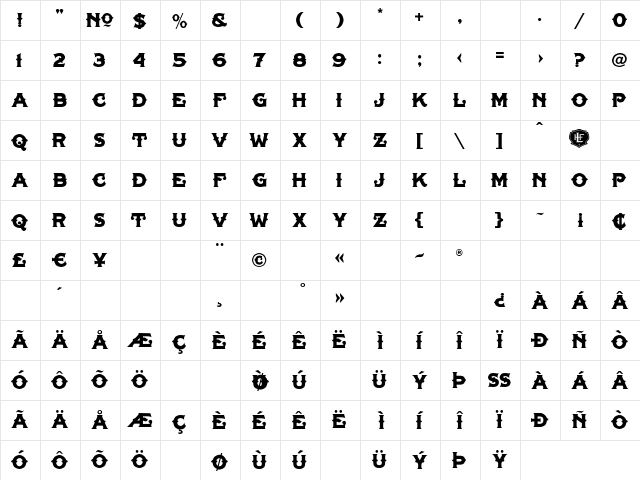
Tonic Lhf Liver Regular Free Font
Tonic Lhf Liver Regular
Design Context for Tonic Lhf Liver
Tonic Lhf Liver is a composed and adaptable typeface that performs quietly and consistently across a wide range of design contexts.